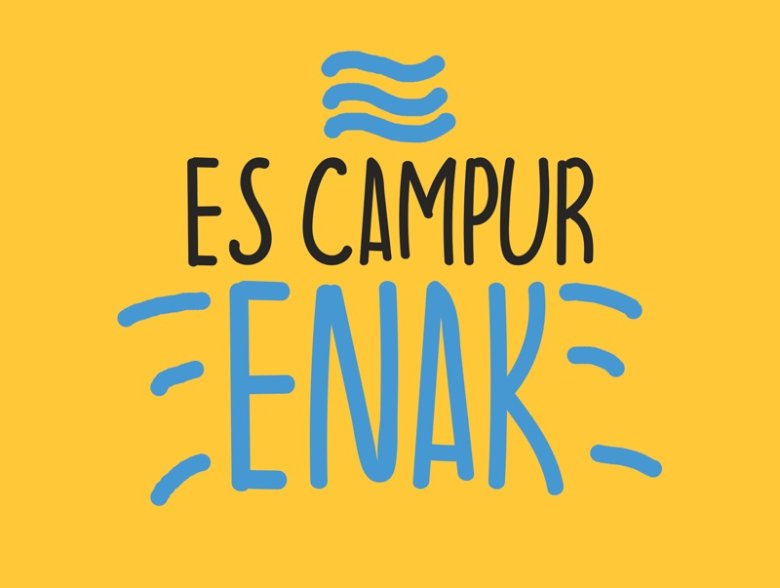
Es Campur Enak Font
Es Campur Enak is a high quality Handwritten font that is designed by Arendx Studio and is available for free download and personal use. The free version provides all uppercase and lowercase letters and a few special characters too.
Es Campur Enak Handwritten Font